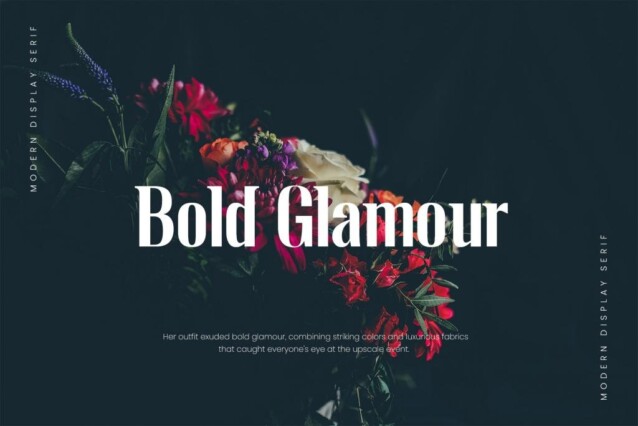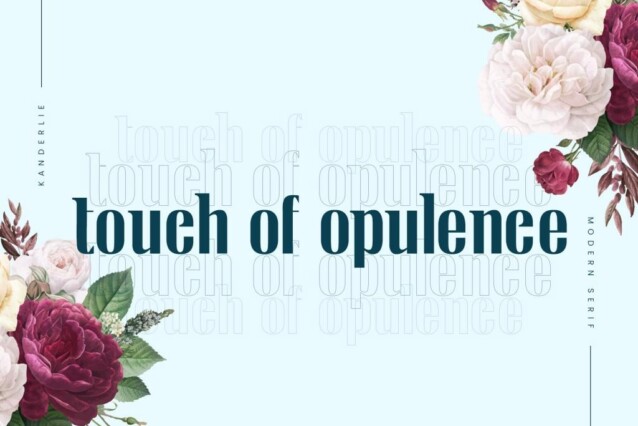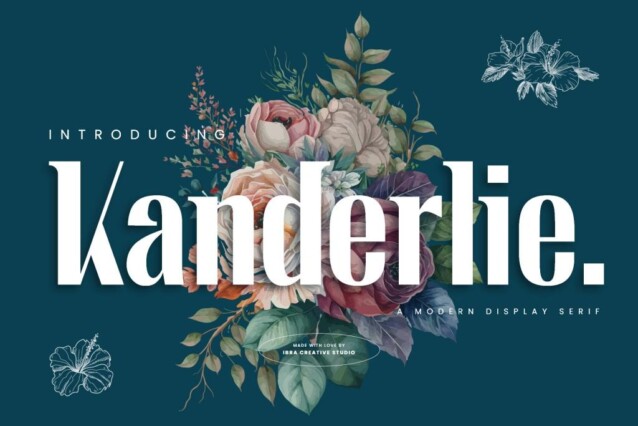
Kanderlie Font
Kanderlie Font is a unique and very elegant typeface for branding and logo designs. Its sleek, well-defined letterforms seamlessly blend classical serif elements with a crisp, contemporary edge. The subtle, tastefully designed serifs add a touch of sophistication, enhancing readability and lending a timeless appeal. Kanderlie’s characters are meticulously crafted with precise proportions and balanced weight distribution, making it ideal for impactful headlines, branding, and high-end editorial projects. The font’s modern sensibilities and versatility allow it to adapt seamlessly across various design contexts, conveying a sense of style and modernity that captures attention and leaves a lasting impression.